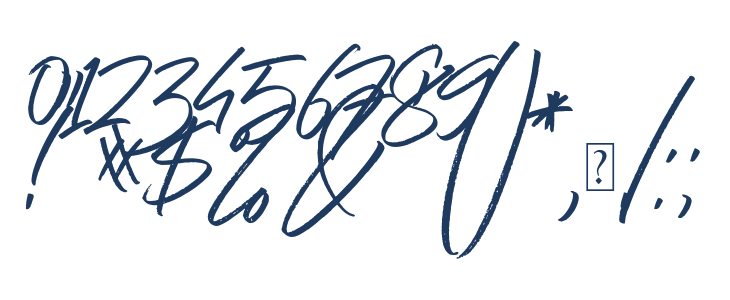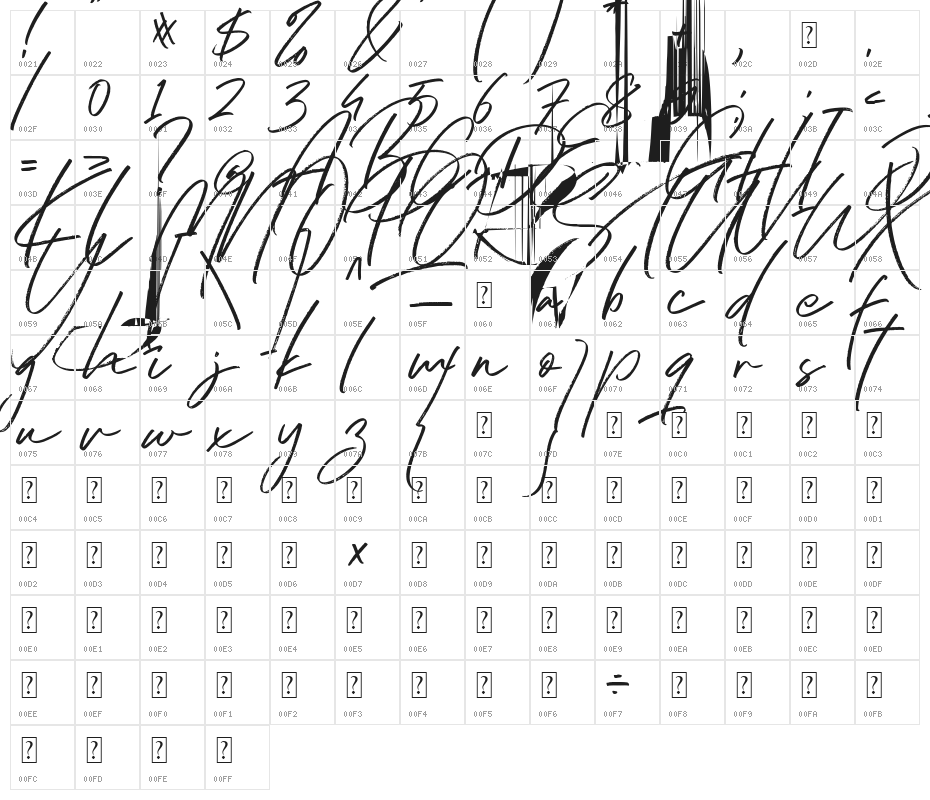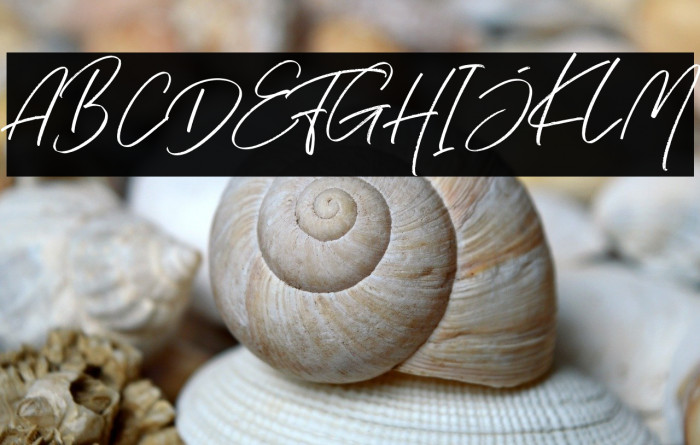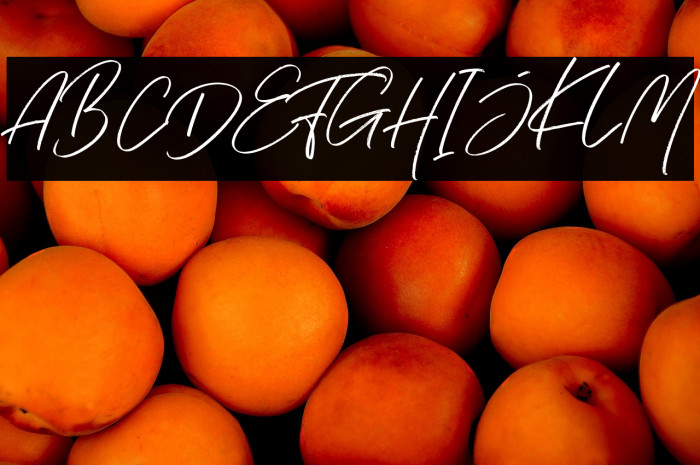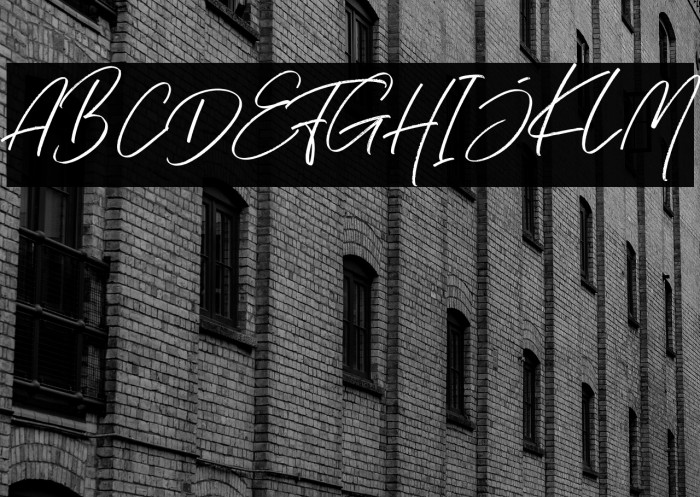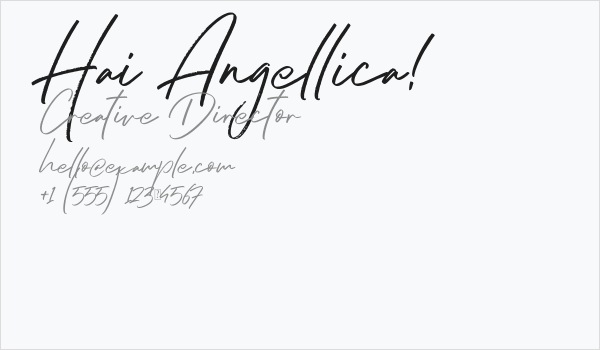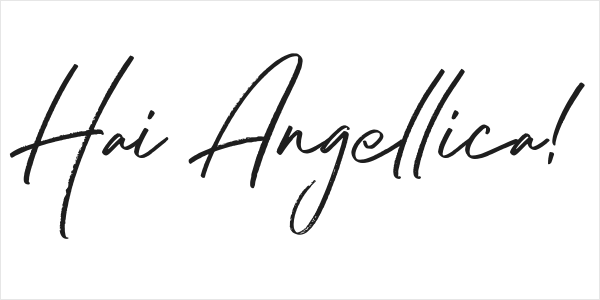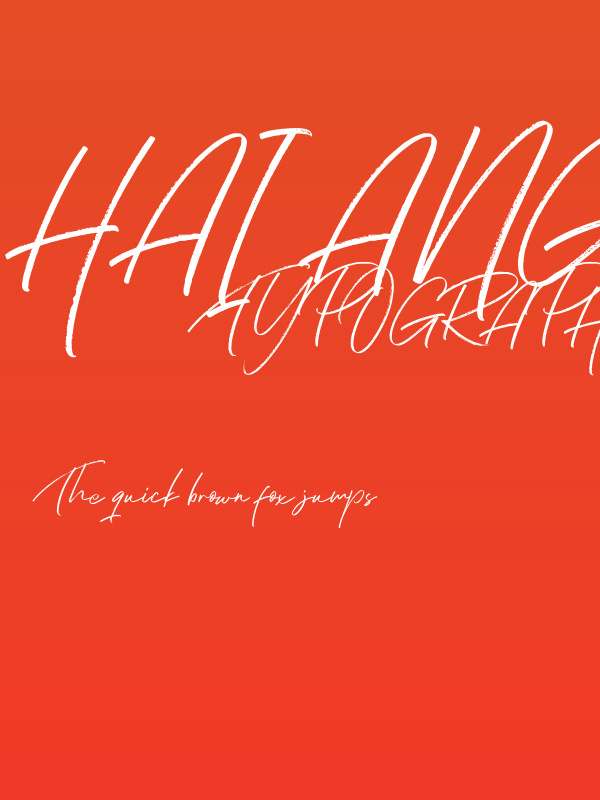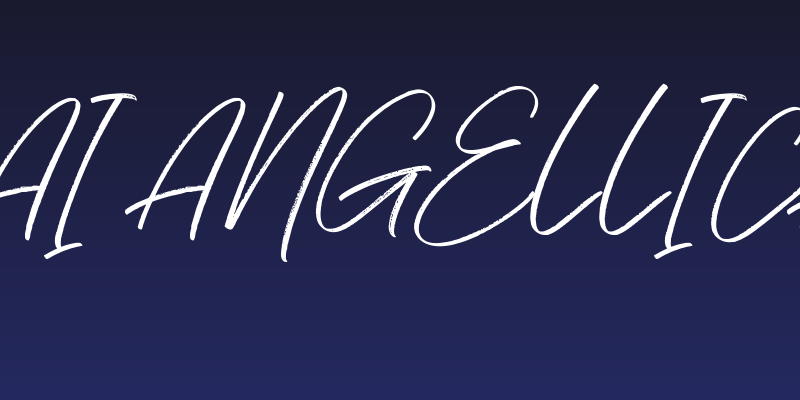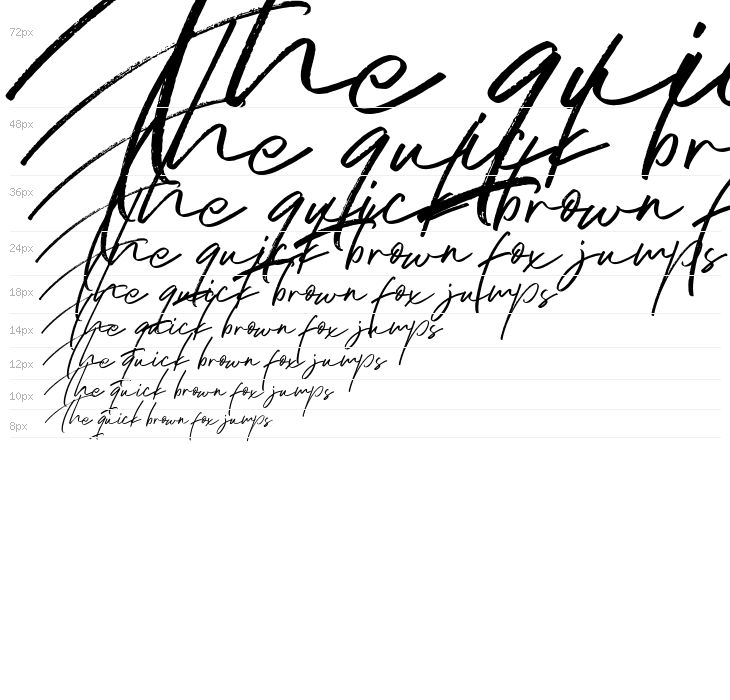
Hai Angellica! Font
Hai Angellica! Description
This font exudes a dynamic and expressive handwritten style, characterized by its fluid and spontaneous strokes. The letters are crafted with a natural flow, giving an impression of personal touch and creativity. The uppercase and lowercase letters maintain a consistent style, with elongated and slightly slanted forms that suggest movement and elegance. The numerals and special characters follow the same energetic and freeform aesthetic, making them seamlessly integrate with the alphabet. This font is perfect for projects that require a personal and artistic flair, such as invitations, greeting cards, or branding that seeks to convey a sense of individuality and warmth.
| Overall Style | Artistic, Expressive |